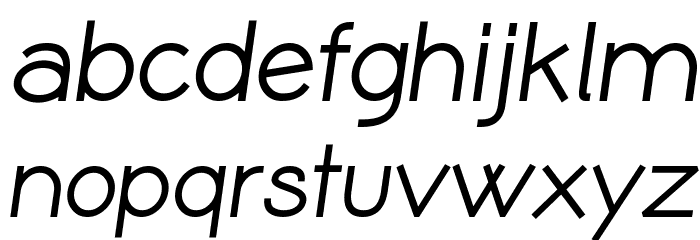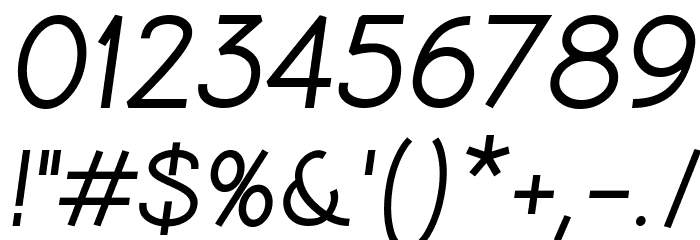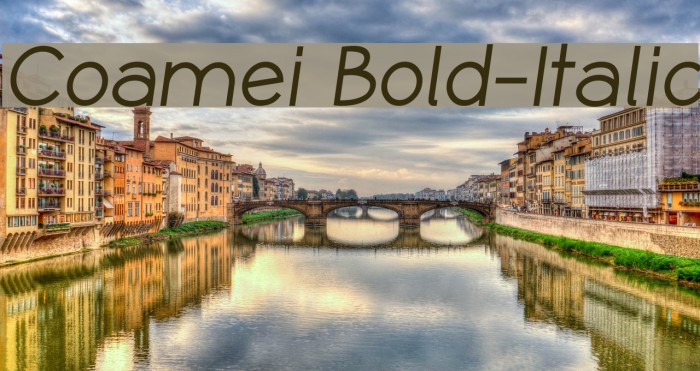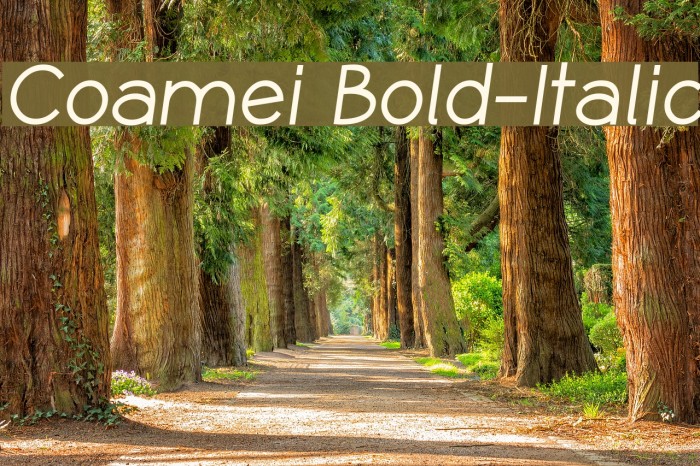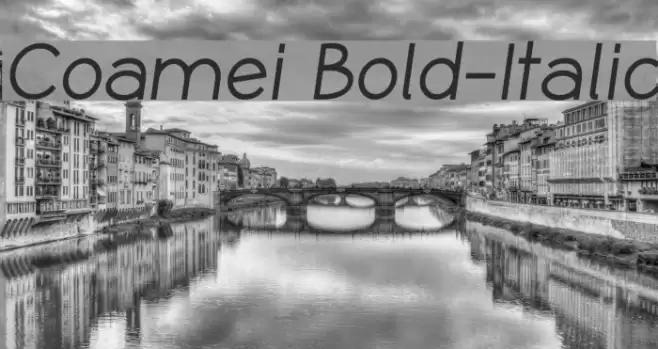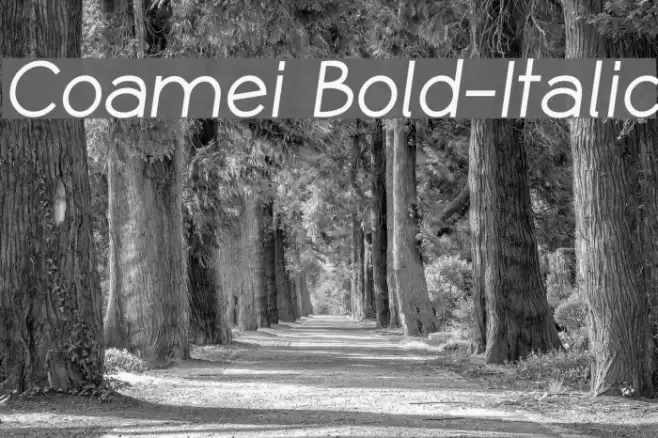
Coamei Bold-Italic Font
This font exhibits a modern, sleek design with a distinct italic slant, giving it a dynamic and forward-moving appearance. The bold weight enhances its presence, making it suitable for attention-grabbing headlines. The characters are well-proportioned with a consistent stroke width, contributing to a clean and professional look. The sans-serif style ensures readability and versatility across various applications. The spacing between characters is normal, allowing for clear legibility without appearing cramped. Overall, this font combines elegance with a contemporary edge, making it ideal for modern design projects.
A modern, bold italic sans-serif font with a sleek and dynamic style.
- Proposed Projects: Ideal for branding, advertising, and editorial design where a modern and bold statement is needed.